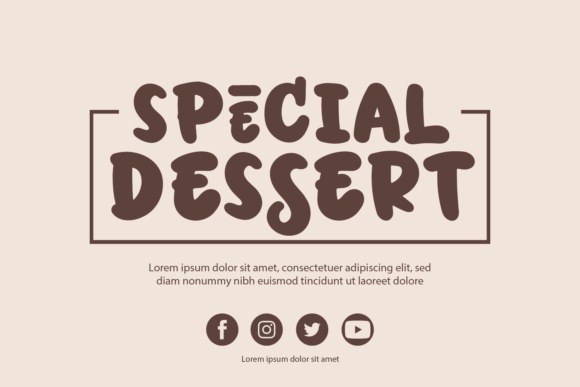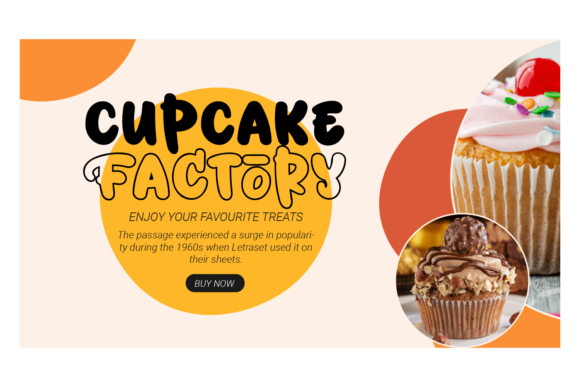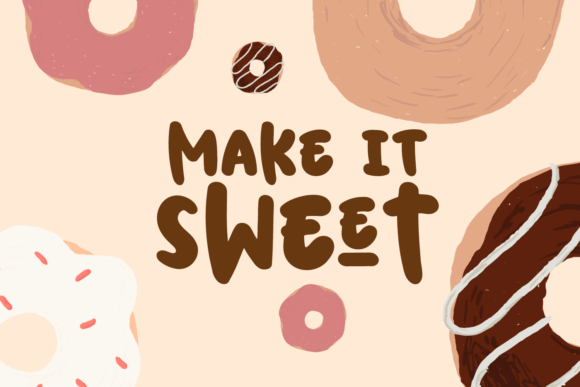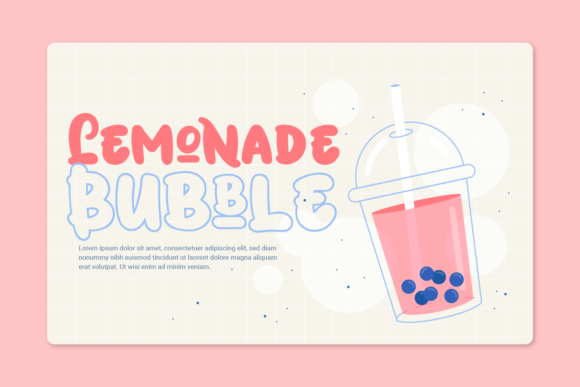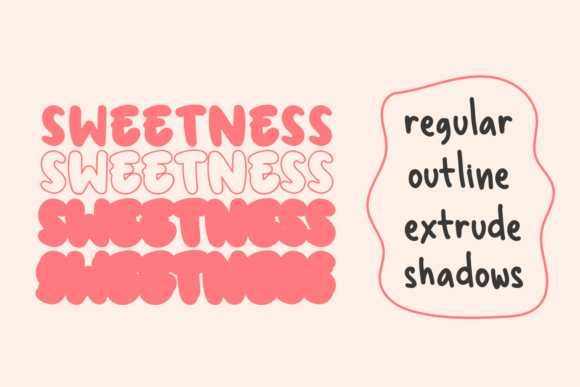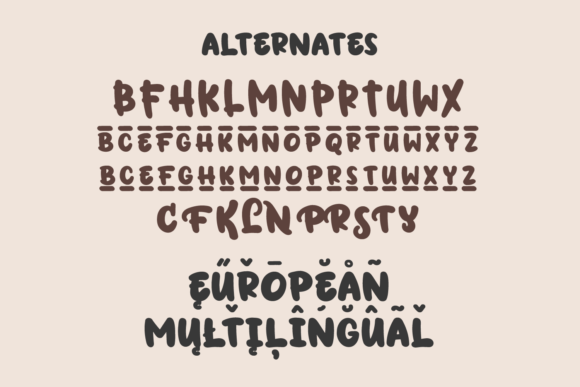
Candy Paint Font: The Sweetest Addition to Your Design Collection
Are you a designer or crafter looking for a font that’s as sweet as it is versatile? Look no further than Candy Paint Font! This bubble font is a game-changer, offering good quality, easy access alternates, and excellent readability. In this article, we’ll dive into the world of Candy Paint Font and explore its many uses, from dessert packaging to website design.
What is Candy Paint Font?
Candy Paint Font is a modern, bubble-style font that’s perfect for adding a touch of whimsy to your designs. With its rounded edges and smooth curves, this font is sure to delight. But what really sets Candy Paint apart is its versatility. It comes in 4 styles, giving you the flexibility to choose the perfect look for your project.
Key Features of Candy Paint Font
- Good Quality: Candy Paint Font is designed with high-quality typography in mind. Its crisp lines and smooth curves make it perfect for use in a variety of applications, from digital displays to print materials.
- Easy Access Alternates: With Candy Paint Font, you’ll have access to a range of alternate characters, making it easy to mix and match to create a unique look.
- Good Readability: Despite its playful design, Candy Paint Font is surprisingly readable, even at smaller sizes. This makes it perfect for use in body text, as well as headlines and titles.
- 4 Styles: Whether you’re looking for a bold, statement-making font or a more subtle, elegant look, Candy Paint Font has you covered. Its 4 styles give you the flexibility to choose the perfect look for your project.
Uses for Candy Paint Font
So, what can you use Candy Paint Font for? The possibilities are endless! Here are a few ideas to get you started:
- Dessert Packaging: Add a touch of sweetness to your dessert packaging with Candy Paint Font. Whether you’re designing labels for cupcakes, cookies, or candy, this font is sure to delight.
- Ads: Make your ads stand out with Candy Paint Font. Its playful design and bold lines make it perfect for use in advertising, from flyers to billboards.
- Food & Drinks Menus: Add a touch of whimsy to your restaurant or cafe menu with Candy Paint Font. Its readability and elegance make it perfect for use in menu design.
- Quotes: Use Candy Paint Font to add a touch of personality to your quotes and social media posts. Its playful design and alternate characters make it perfect for sharing inspiring words.
- Branding: Establish your brand identity with Candy Paint Font. Its versatility and elegance make it perfect for use in logos, business cards, and more.
- Websites: Add a touch of sweetness to your website design with Candy Paint Font. Its readability and modern design make it perfect for use in web design, from headlines to body text.
Tips for Using Candy Paint Font
Here are a few tips for getting the most out of Candy Paint Font:
- Experiment with Alternates: Don’t be afraid to try out different alternate characters to create a unique look.
- Mix and Match Styles: Combine different styles of Candy Paint Font to create a bold, eye-catching design.
- Use it Sparingly: While Candy Paint Font is perfect for headlines and titles, it can be overwhelming if used too much. Use it sparingly to create a balanced design.